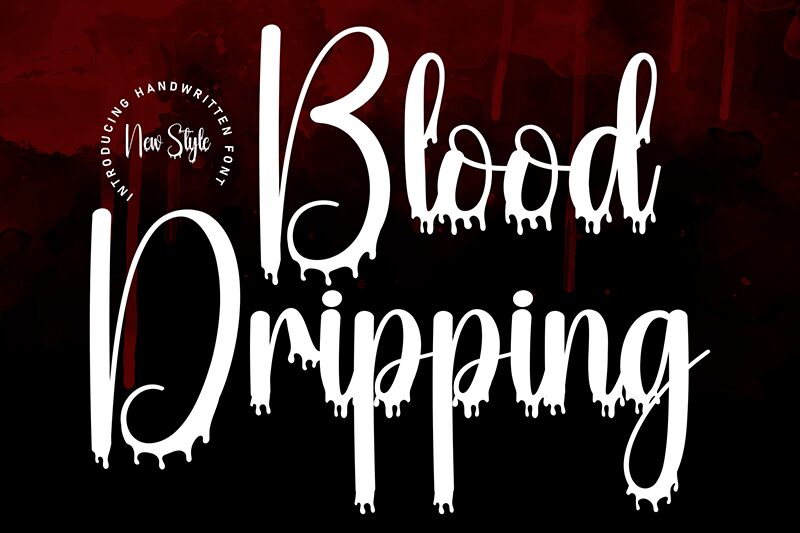
Blood Dripping
Blood Dripping font by Scratchones is a free Halloween display font that leans into the gooey, horror-movie vibe. Tall, inky strokes end in sticky drips, giving each word a wet-paint tension that reads fast and hits hard. Its handwritten sway keeps it playful rather than gruesome, so you get shivers without losing legibility.
Using Blood Dripping, headlines jump off the page for haunted house flyers, party invites, social posts, YouTube thumbnails, treat bag labels, and costume-shop signage. This free font shines big and bold; crank the size, tighten lines, and try blood-red on black for instant drama. Pair with a simple geometric sans to keep body copy clean while the drips do the storytelling.